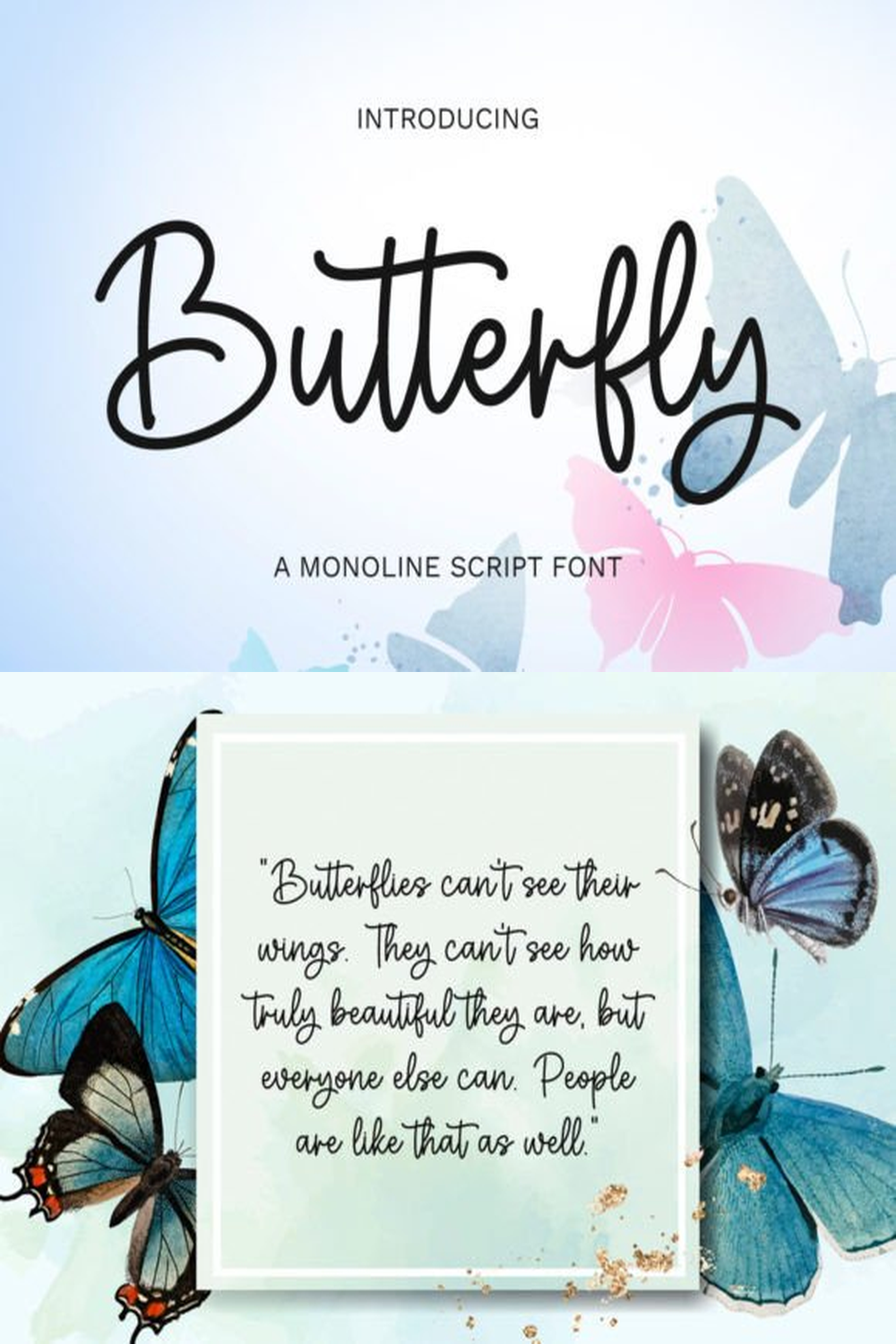
Butterfly Font: Elegant Calligraphy for Wedding & Logo Design
About the Butterfly Font
Meet Butterfly Font, a stunning font that brings a touch of elegance and professionalism to any design. Butterfly is an elegant handwritten font. Dainty and joyful, this font will be ideal for writing wedding invitations, cards, or any other design that may need a romantic, personalized touch!